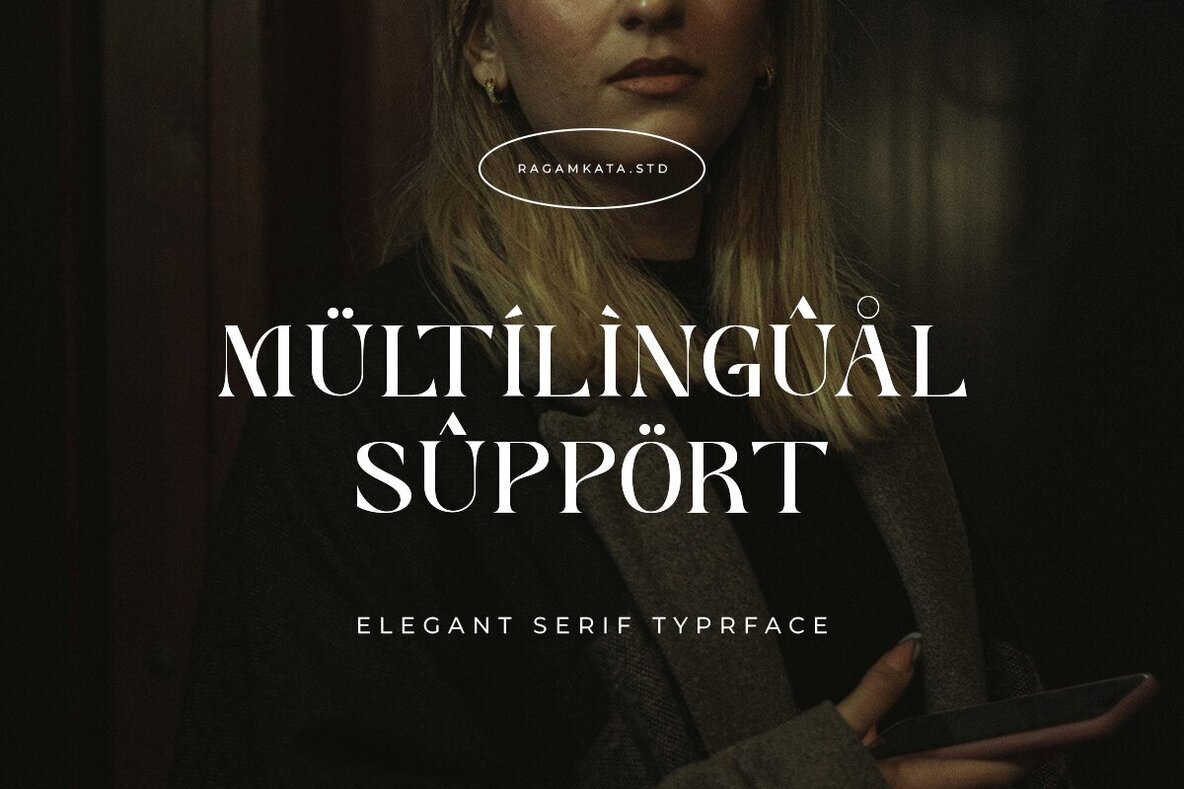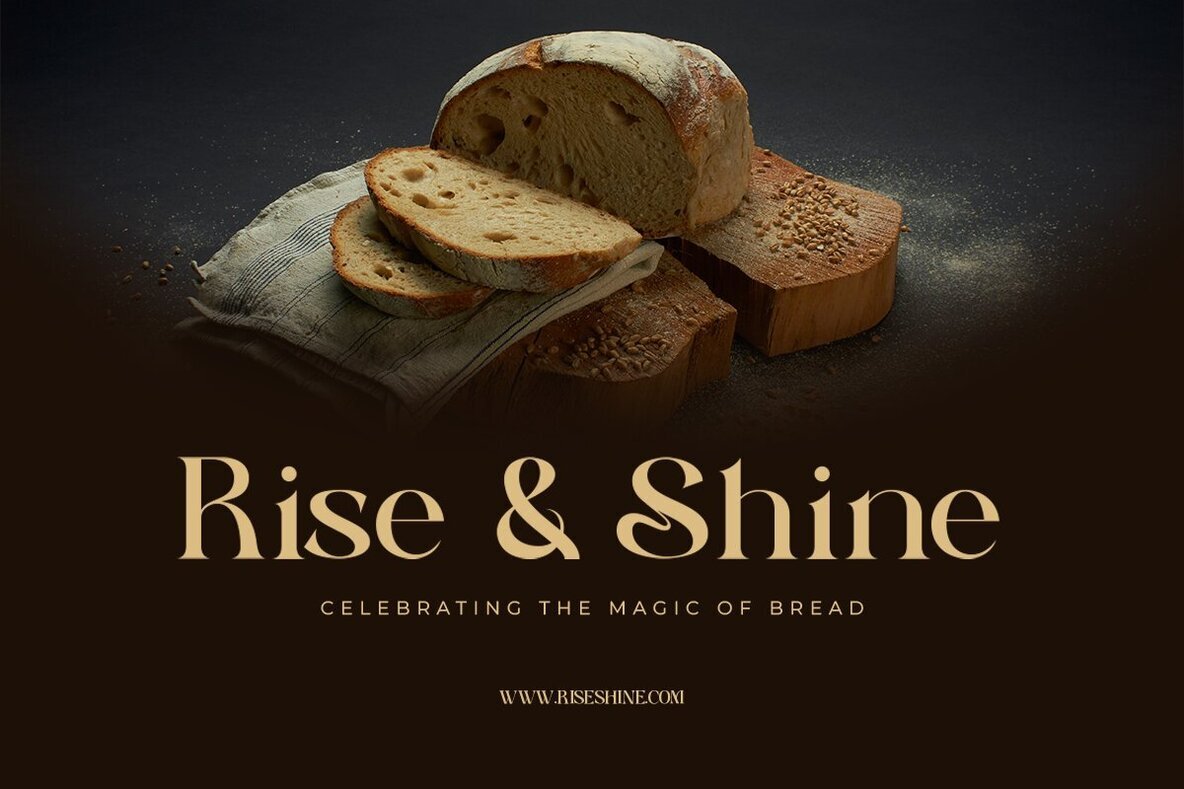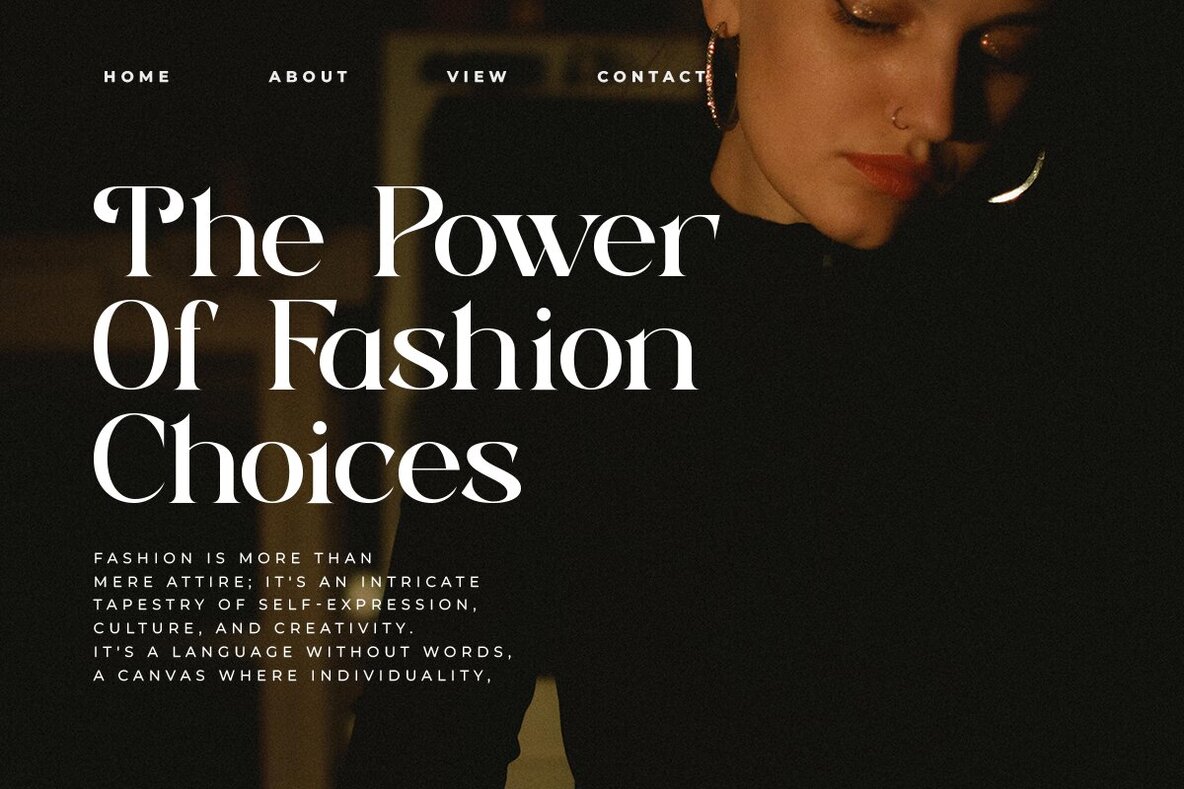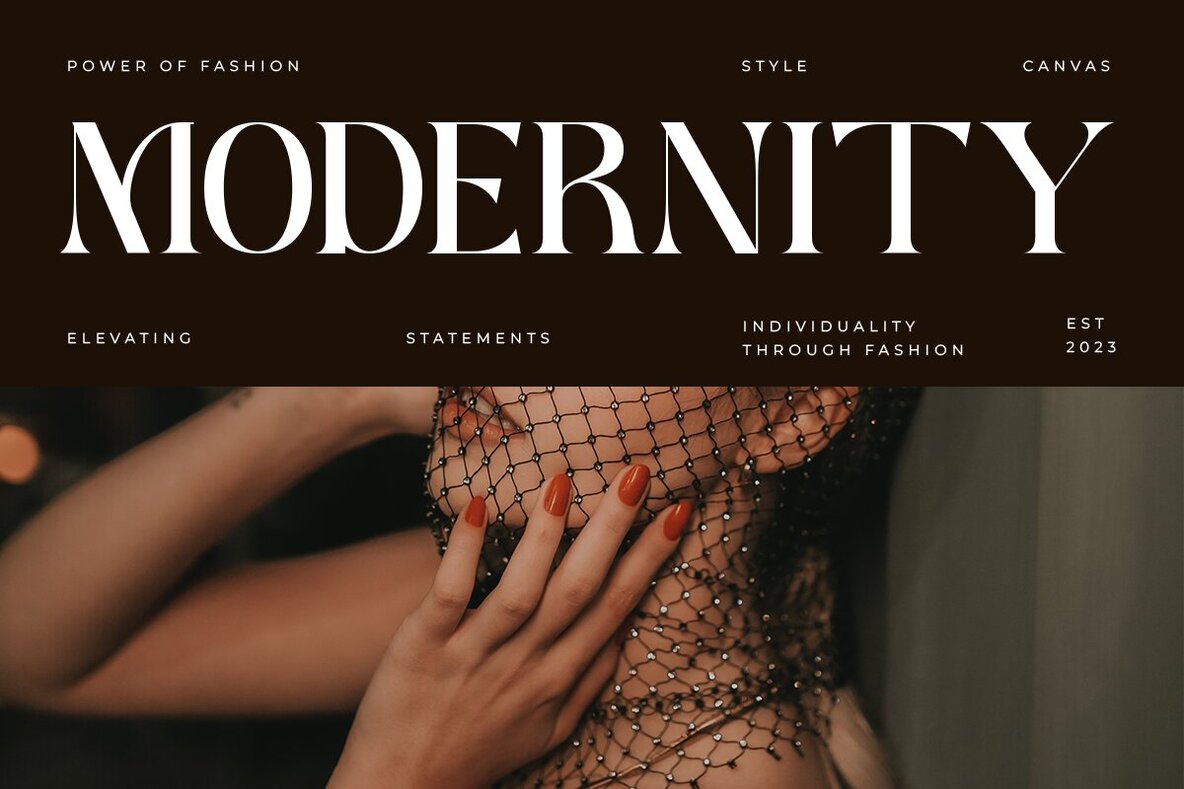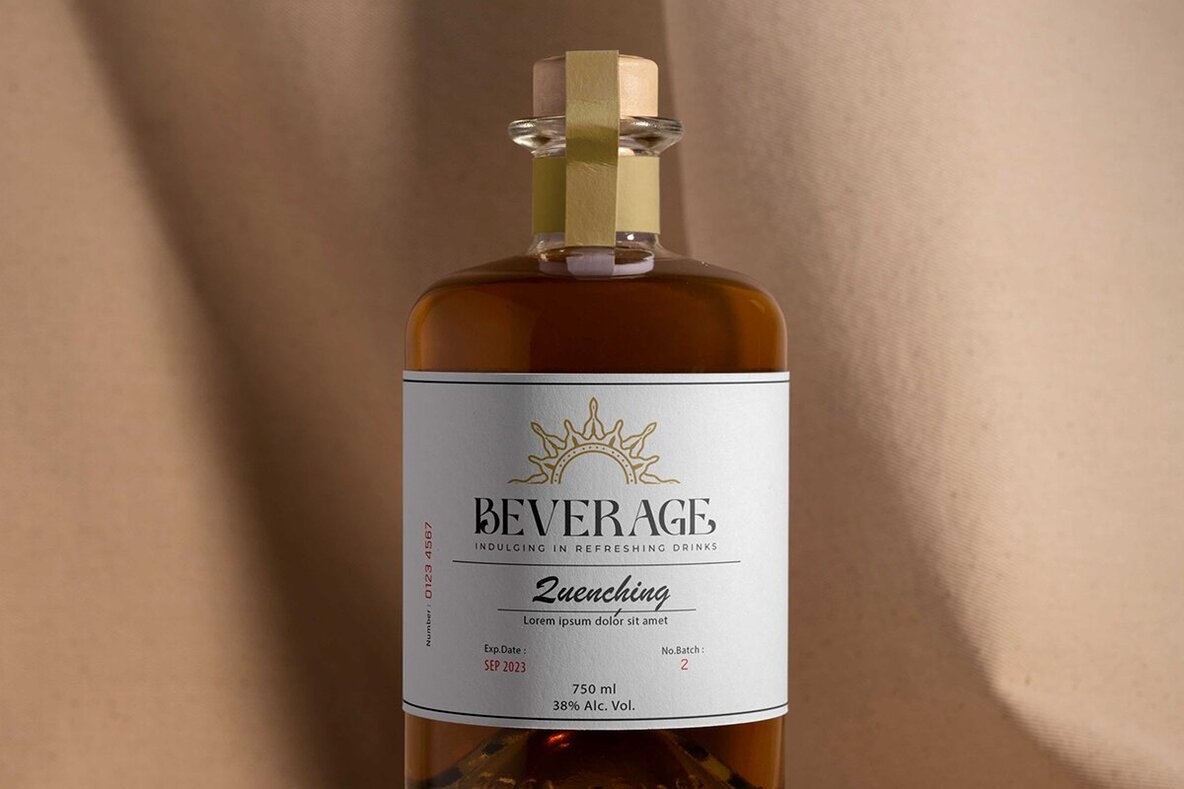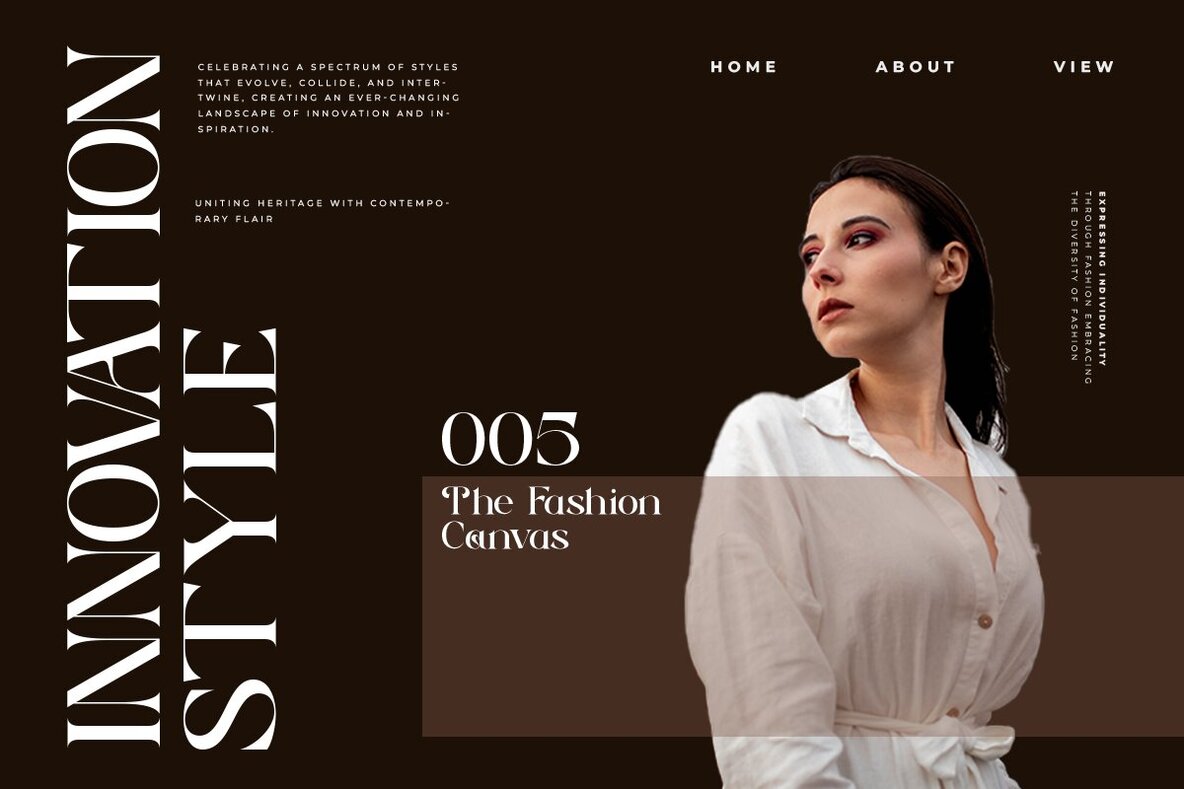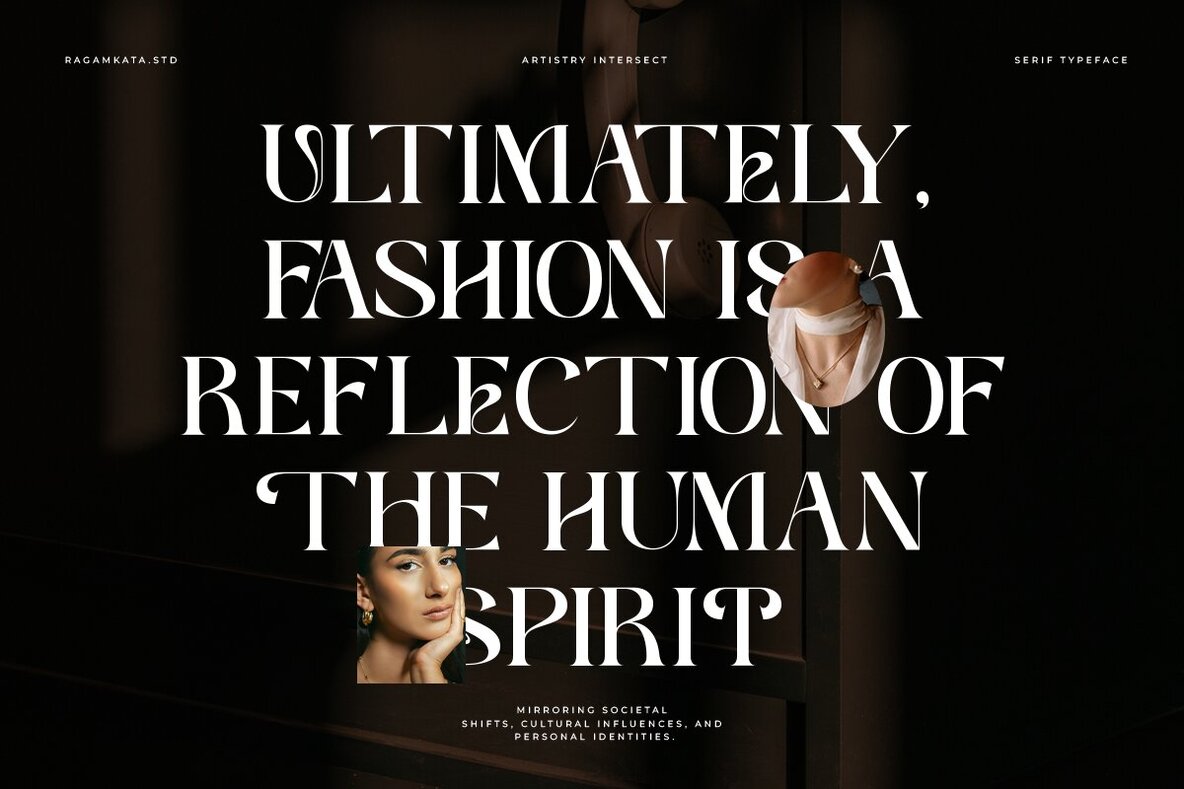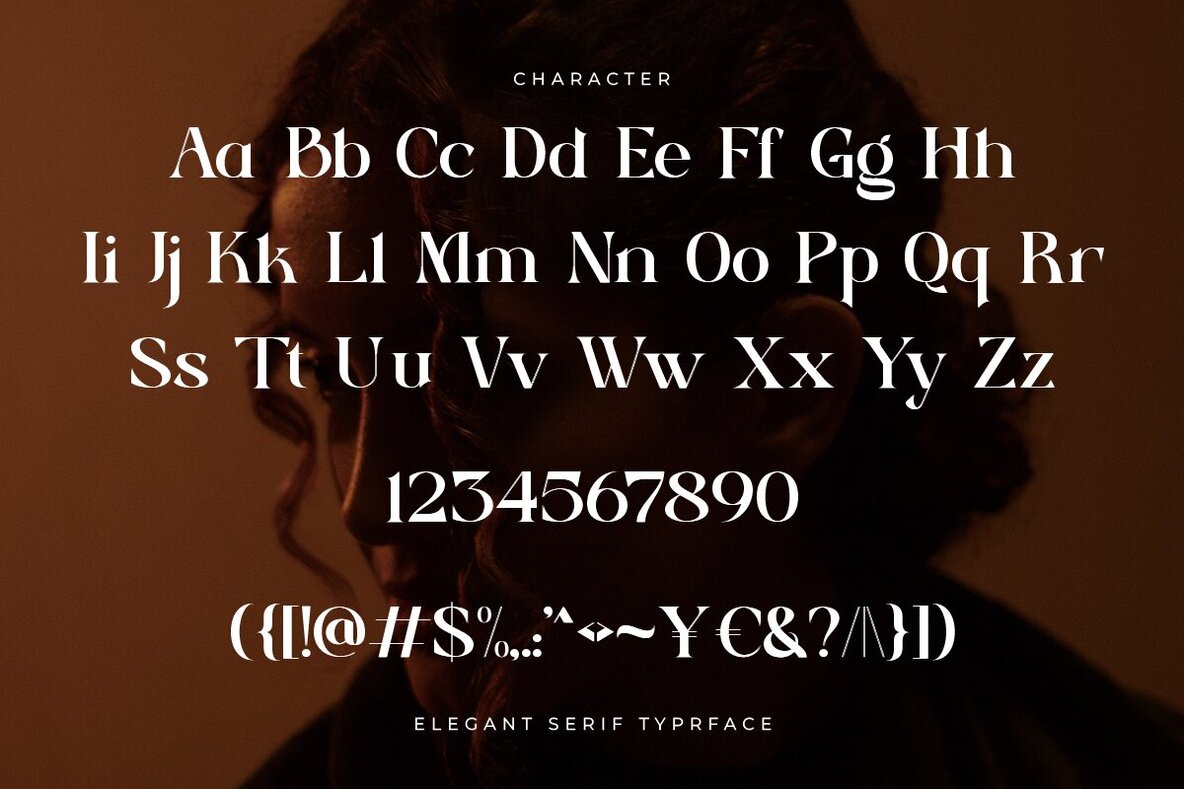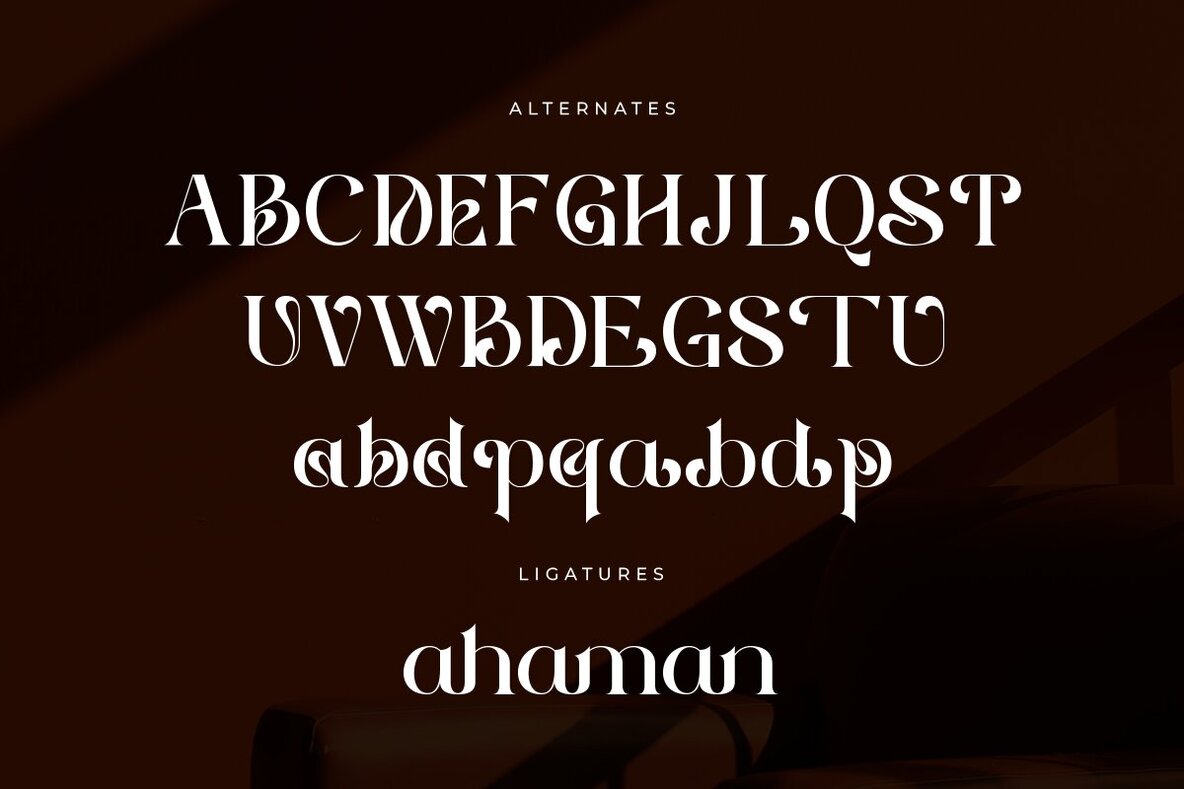
Ethereal Havena Font
Ethereal Havena, a typeface exuding femininity and beauty, combines the delicate strokes of serif typography with the elegant touch of ligatures. Perfect for diverse applications seeking a graceful and sophisticated aesthetic, it graces luxury branding, fashion editorials, and lifestyle magazines with its refined allure. Crafted with expertise, Swagume harmoniously blends modernity with timeless beauty, presenting a distinctive style that encapsulates grace and poise.